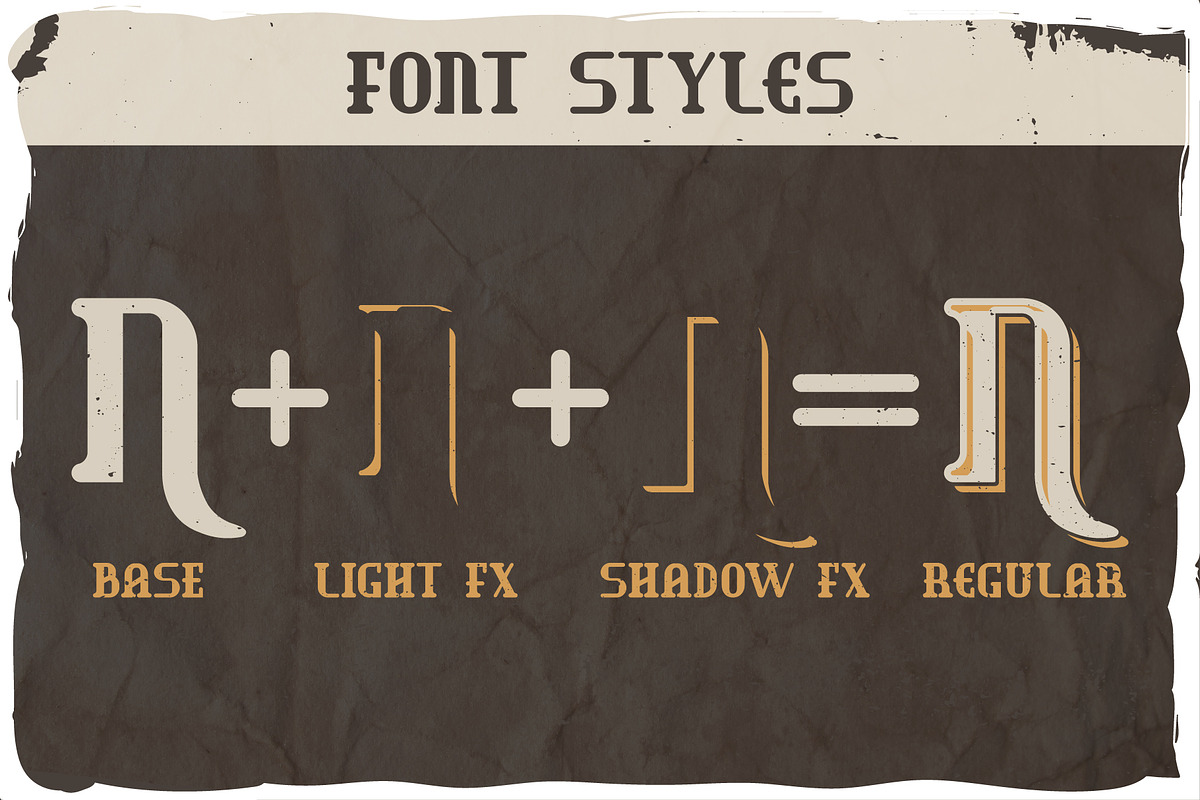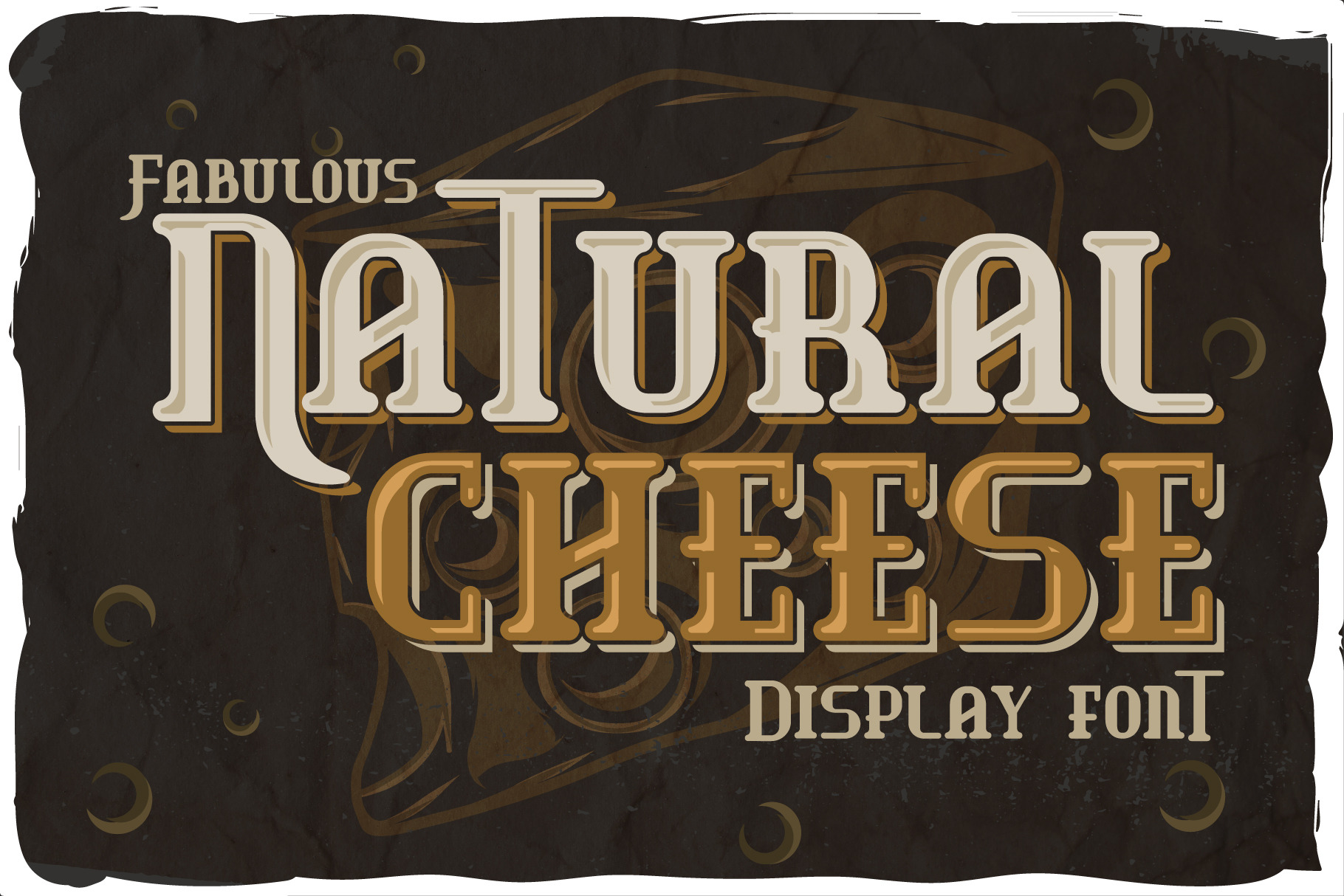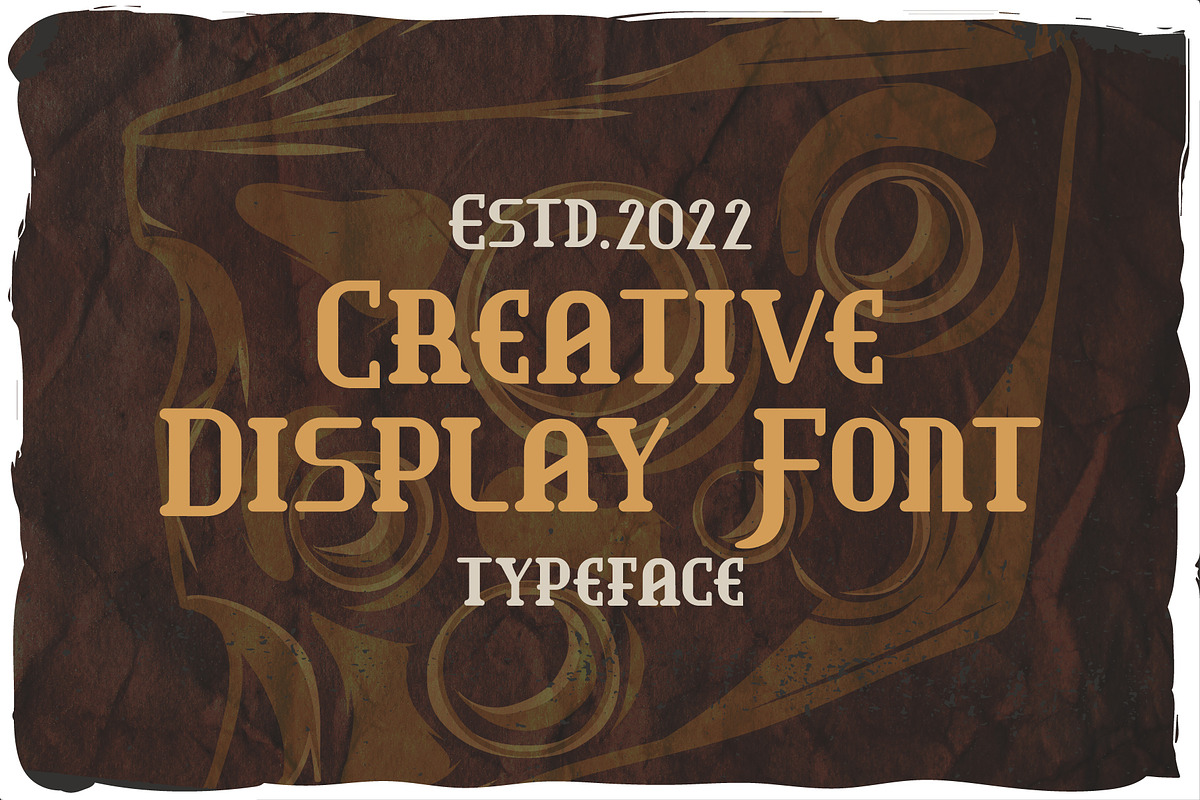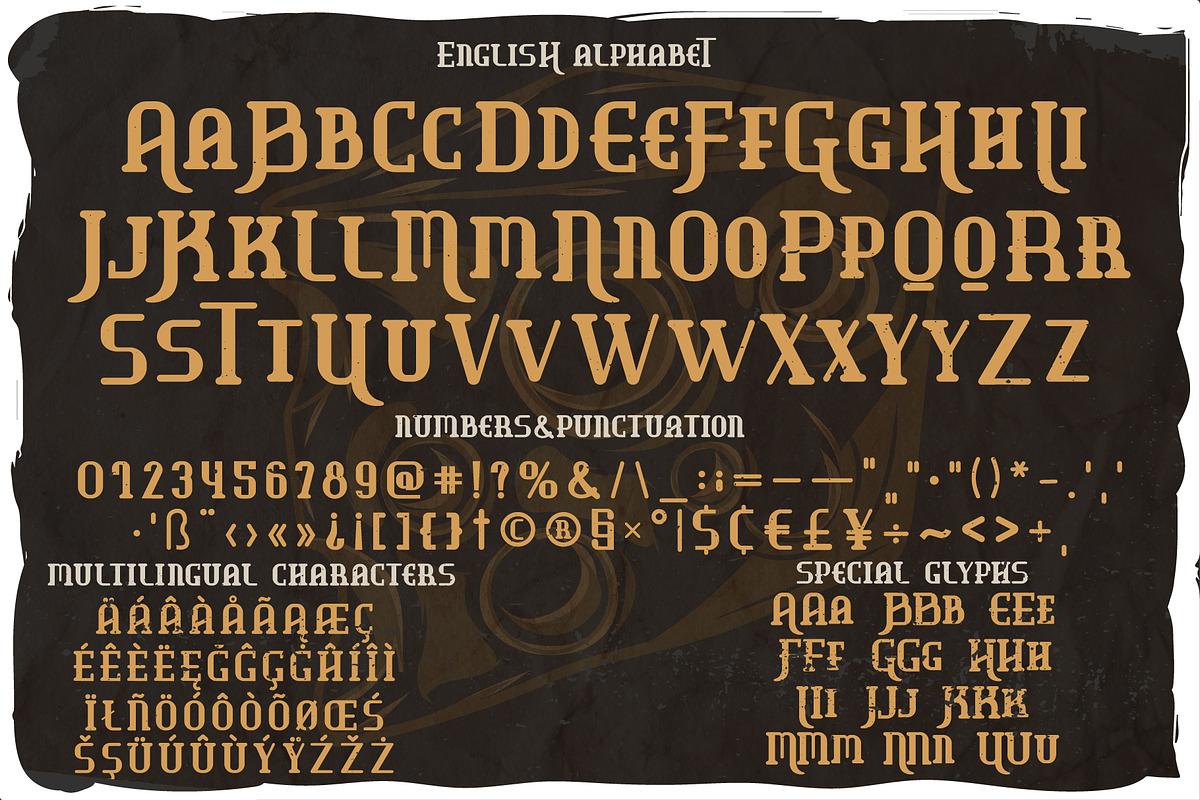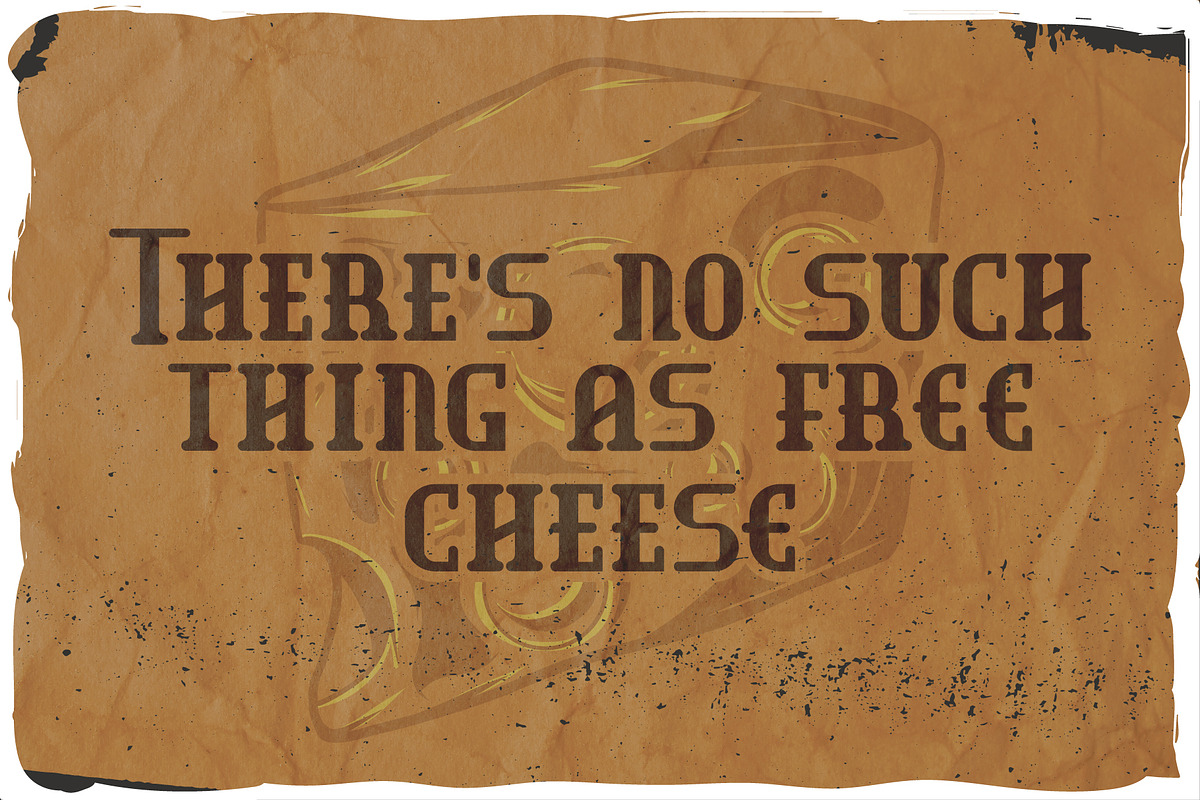
Natural Cheese font
Introducing my newest font called "Natural Cheese". It has wide language support of multilingual characters (check out all available characters in previews). This font will look good on any vintage-styled designs like a poster, T-shirt, label, logo, etc.
- A lot of additional symbols, alternative characters, and multilingual support.
You can use the font of the set for the creation of any design for your purposes with minimal loss of time. The font can be used for patches, labels, badges, signs, symbols, stickers, cups, pins, bags, caps, apparel, products for men, packaging design, and much more.